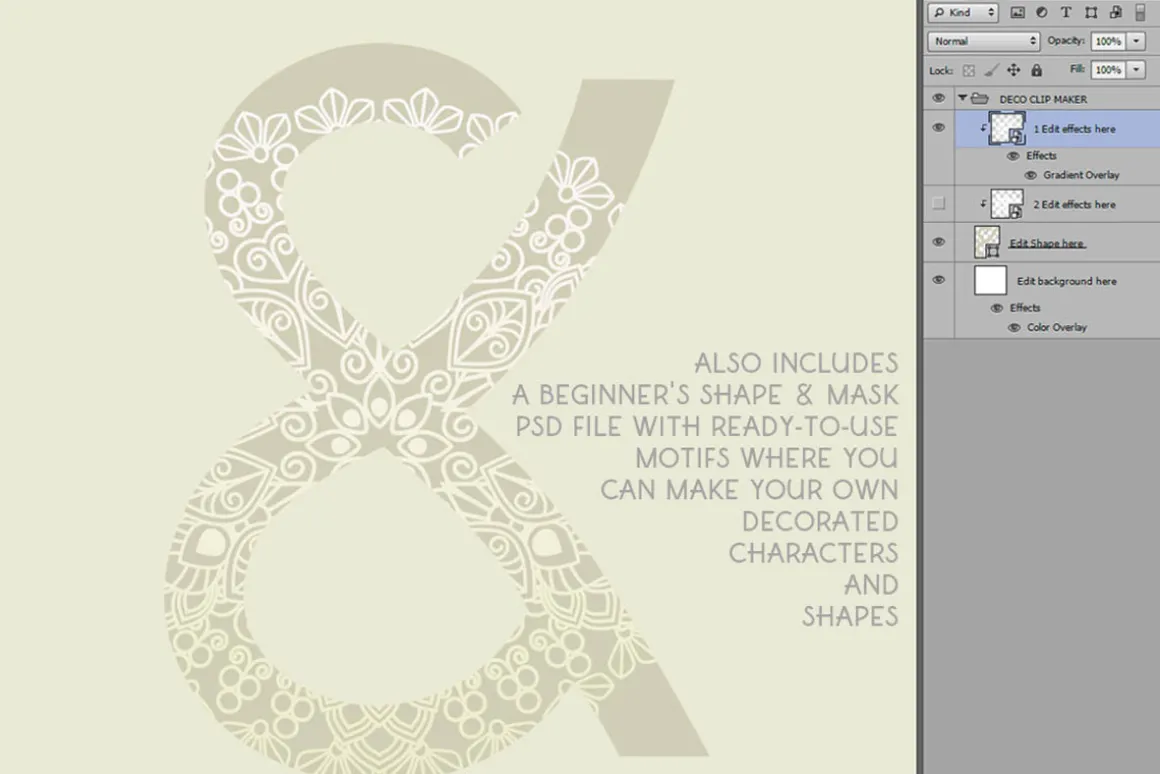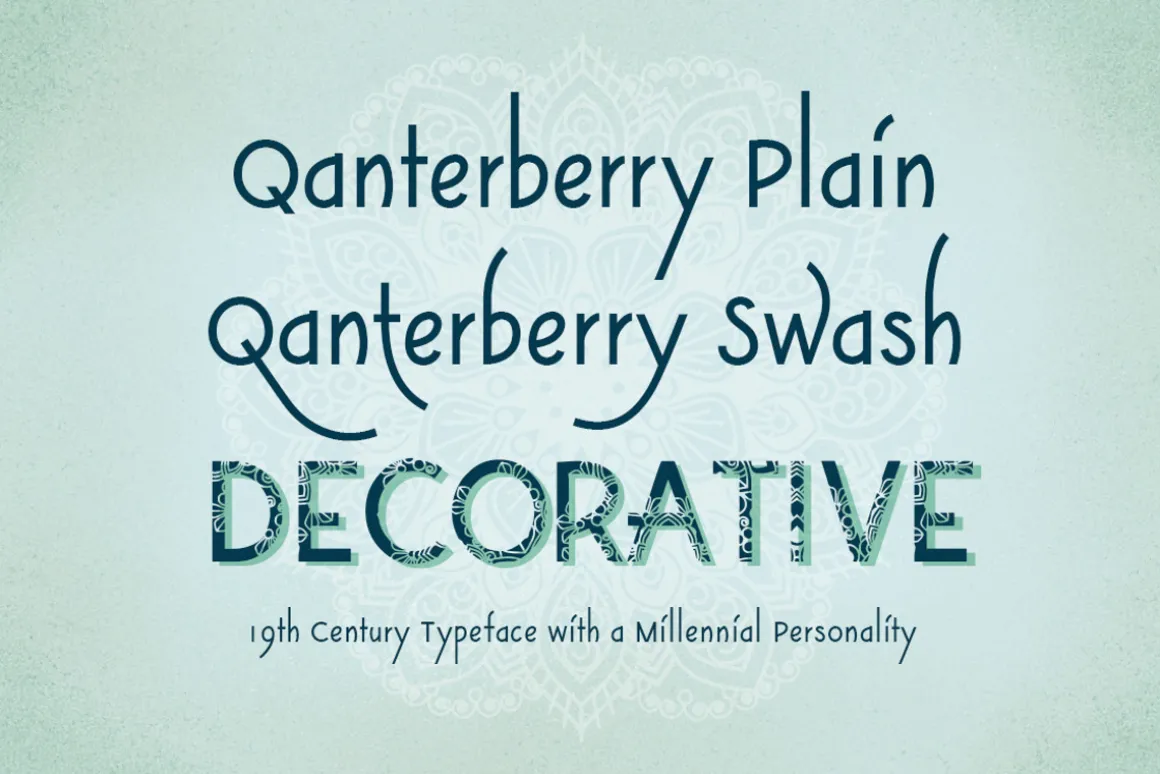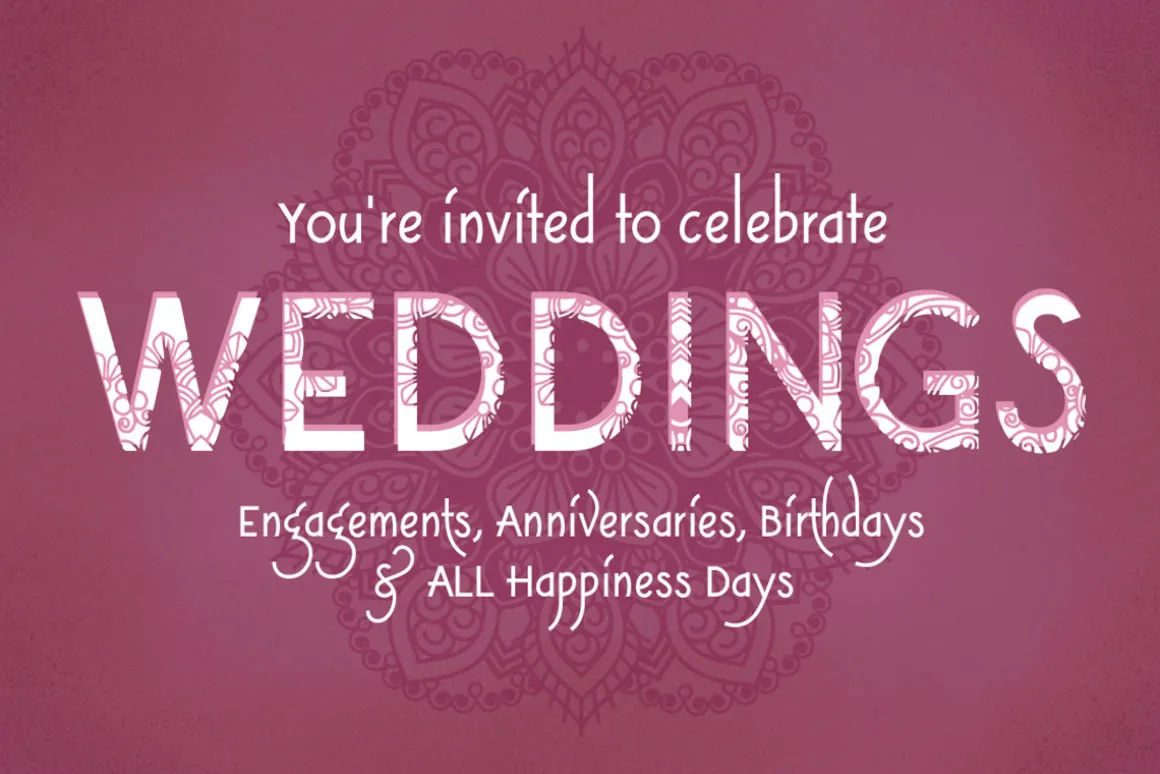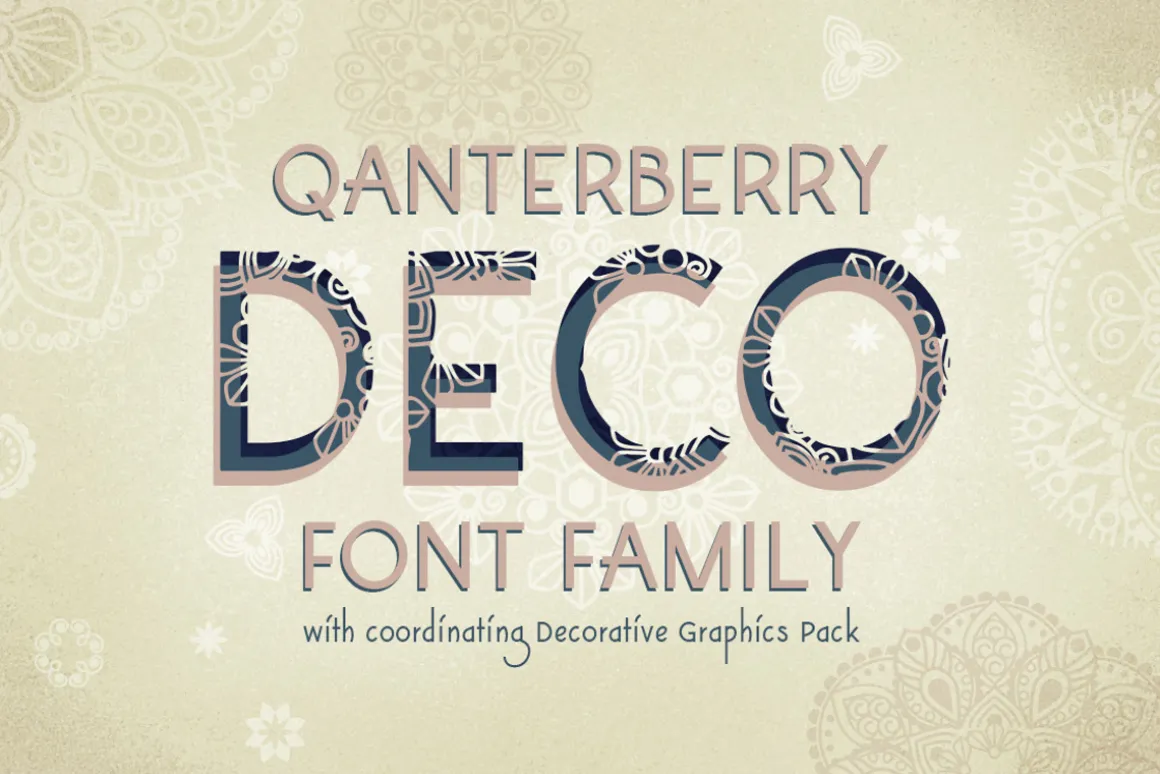
Artistic and hand drawn motifs with a modern, clean style accompany this deco font. This pack contains not only the 3 font family but also a set of 3 EPS files with a bunch of gorgeous matching vector motifs and a beginner Photoshop PSD file all set up ready to create your own coordinating letters, shapes or mandala designs.Ideal for wedding and birthday flyers or party invitations, feminine business cards and product marketing, cosmetics and soap labels, brochures etc.